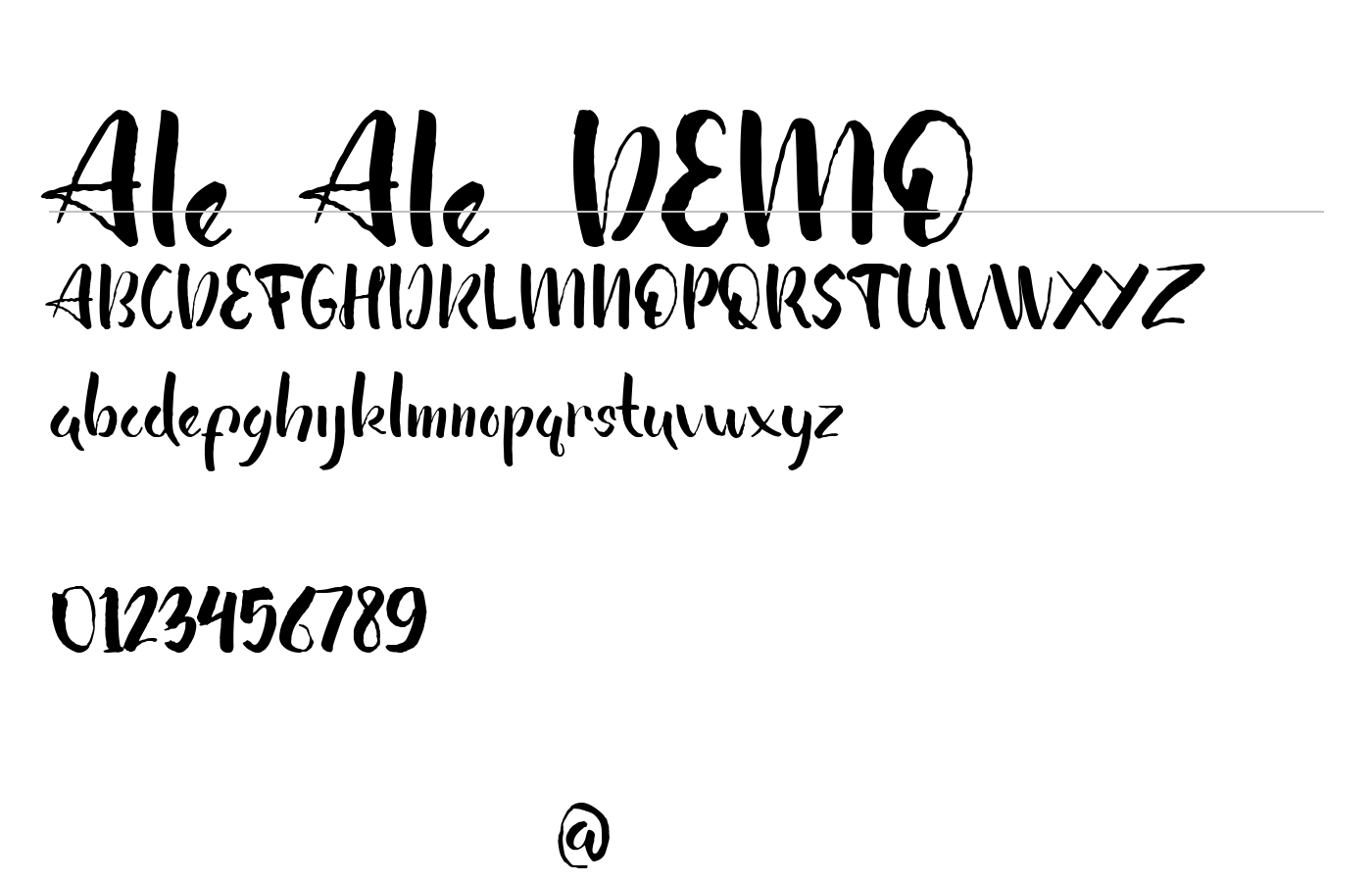
Ale Ale DEMO is a playful and expressive handwritten script font characterized by its bold strokes and irregular, lively letterforms. It combines high contrast brush-like textures with a casual, organic feel, making it perfect for creative projects that want to convey energy and personality. This font works well for logos, posters, and branding where a distinctive, artistic touch is desired.
Ale Ale DEMO Font
About Ale Ale DEMO Font